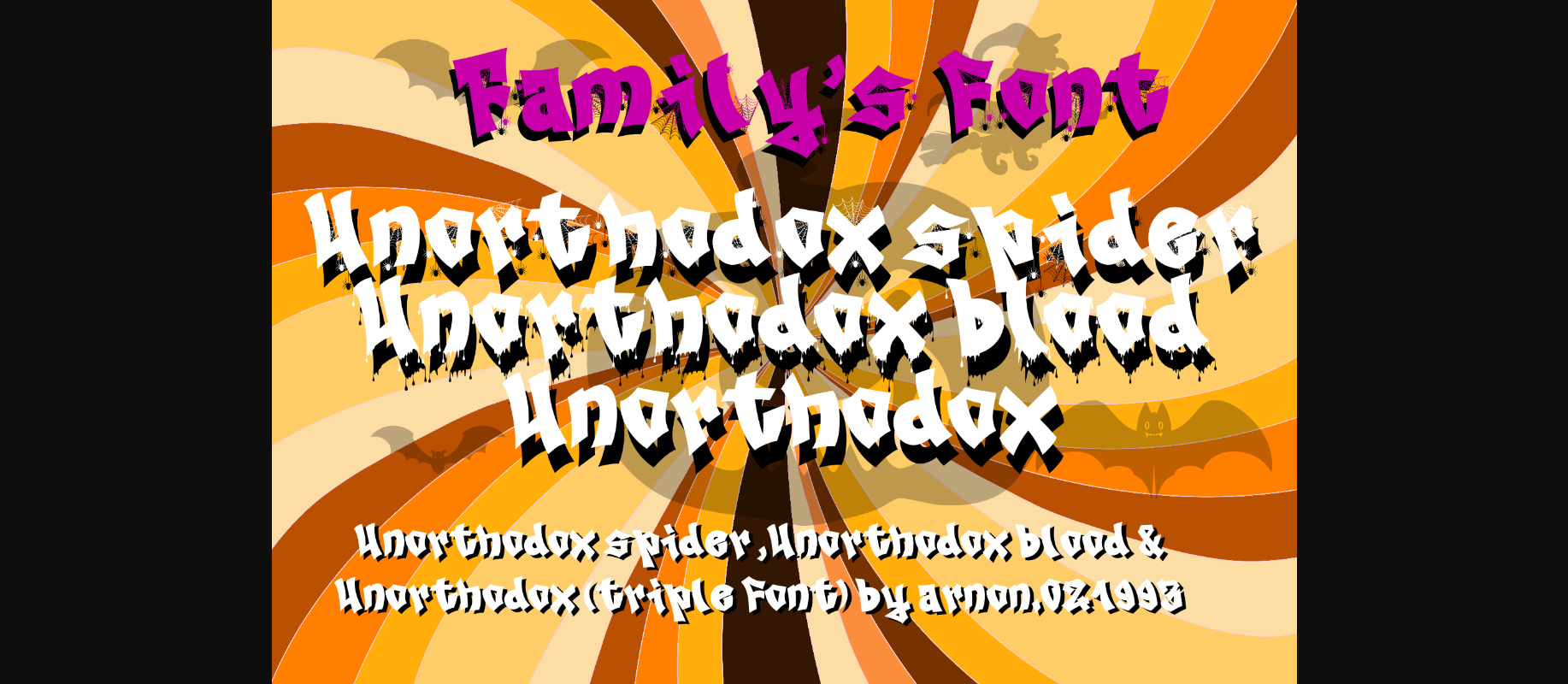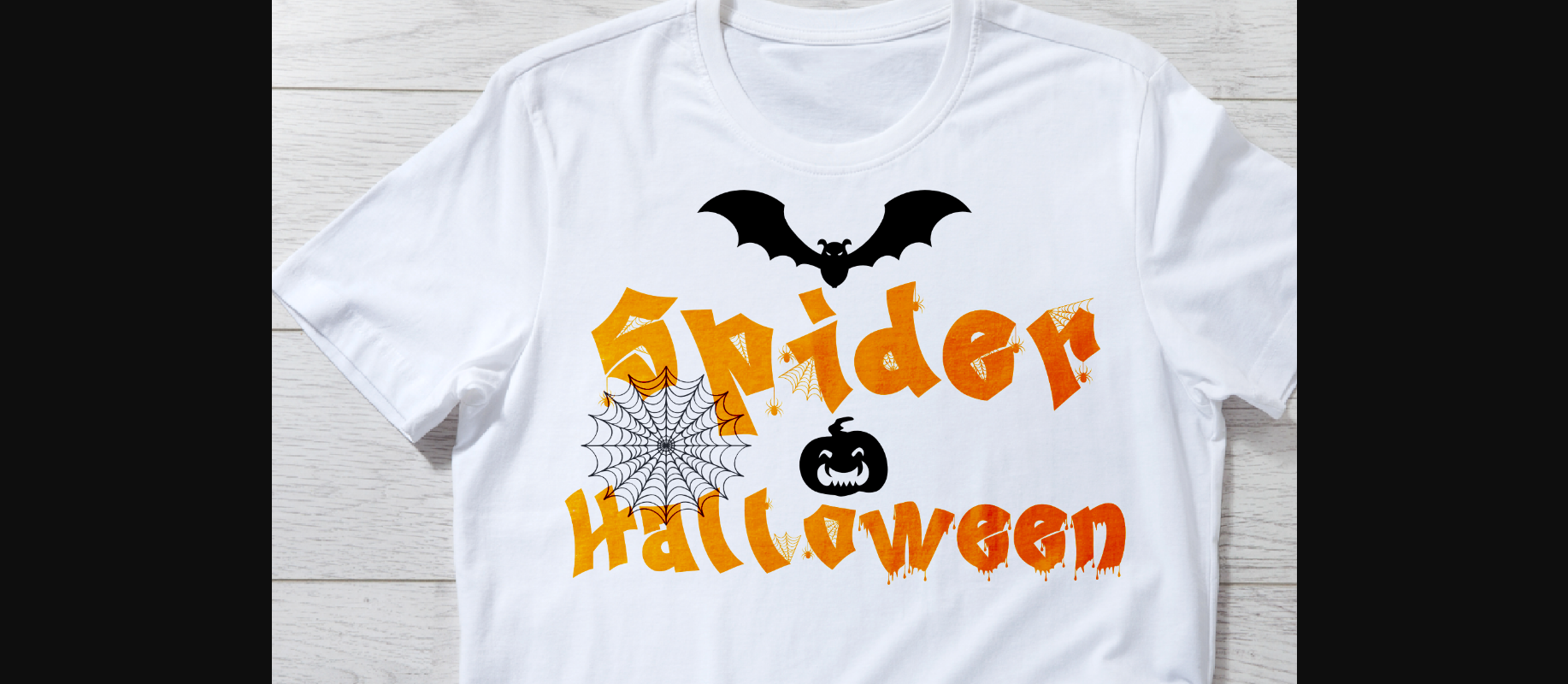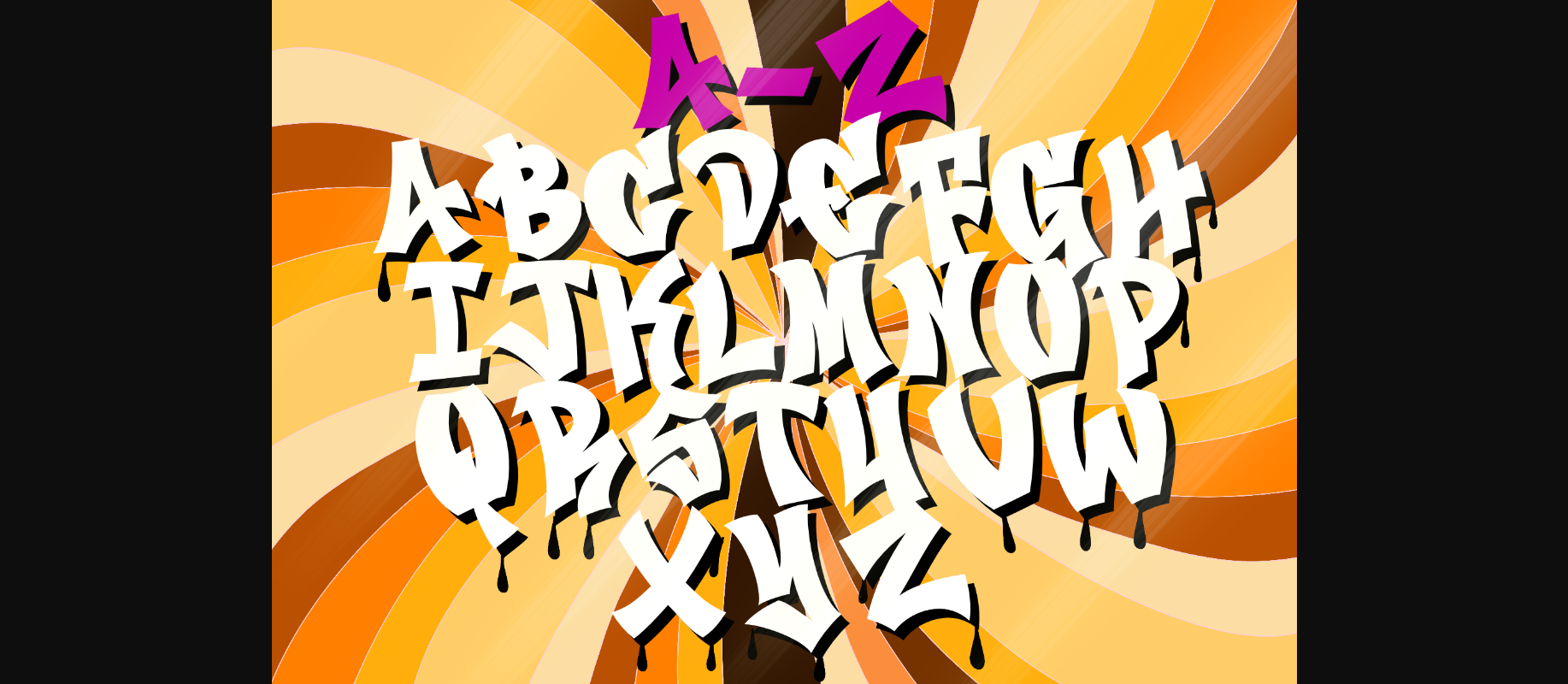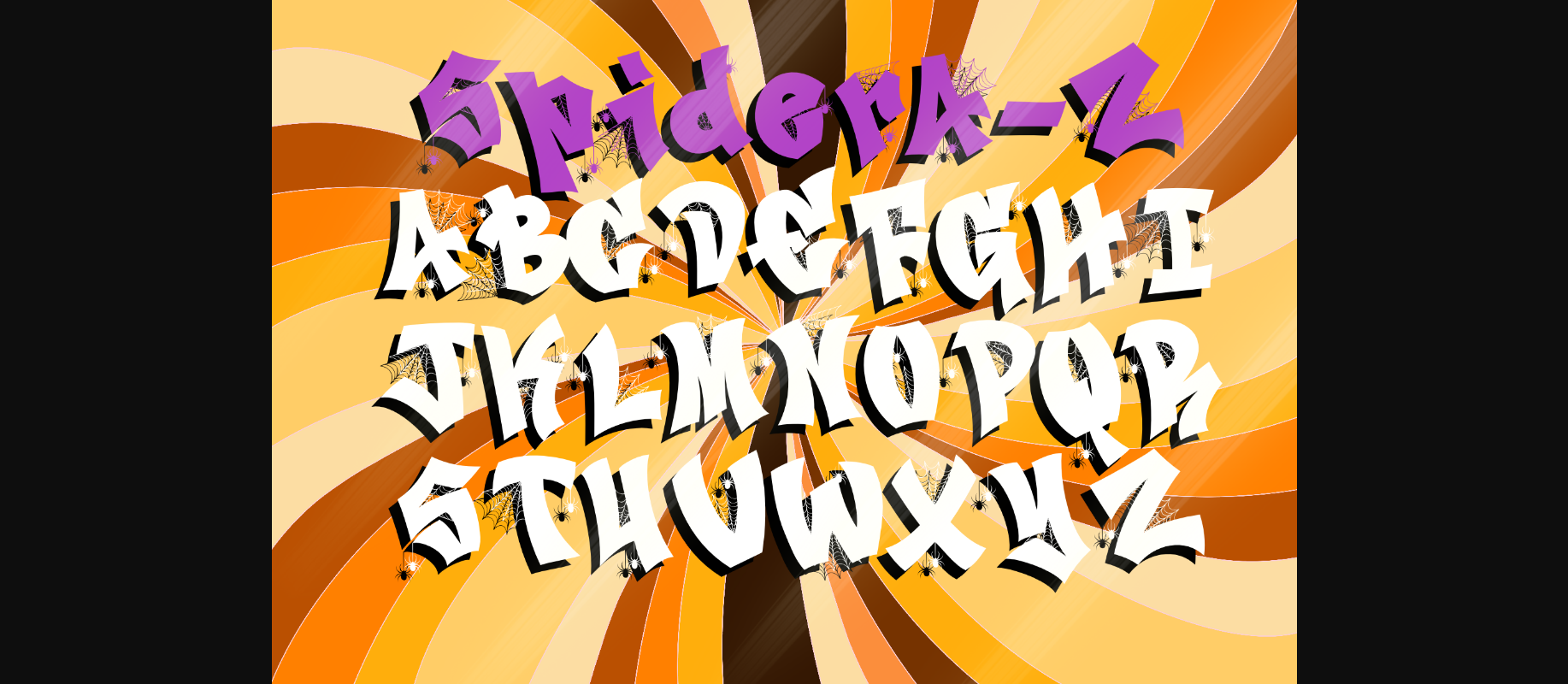
About Unorthodox Font
The “Unorthodox” Halloween family font is a set of three unique and eye-catching fonts perfect for spooky designs. The first font features decorative spiders, adding a creepy and eerie touch to your text. The second font showcases dripping blood, creating a chilling and macabre effect. Finally, the third font is a regular style that complements the other two with a classic and versatile look. Whether you’re creating Halloween-themed party invitations, posters, or spooky crafts, the Unorthodox font family will add a touch of frightful fun to your designs.